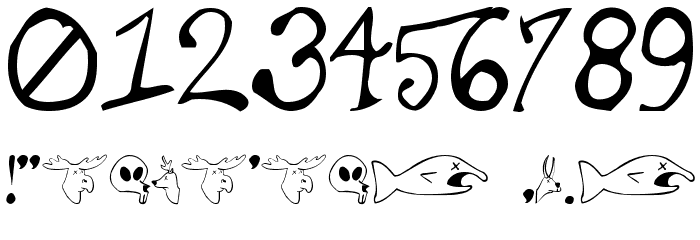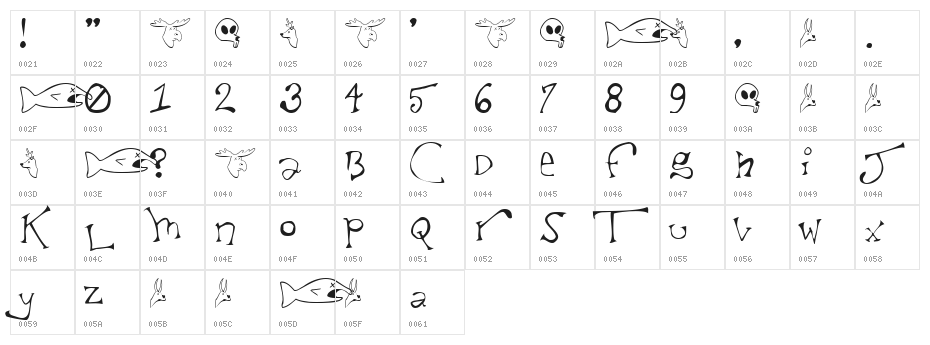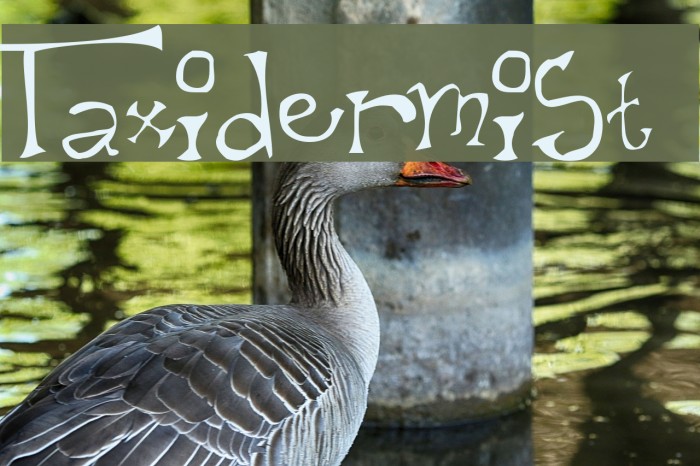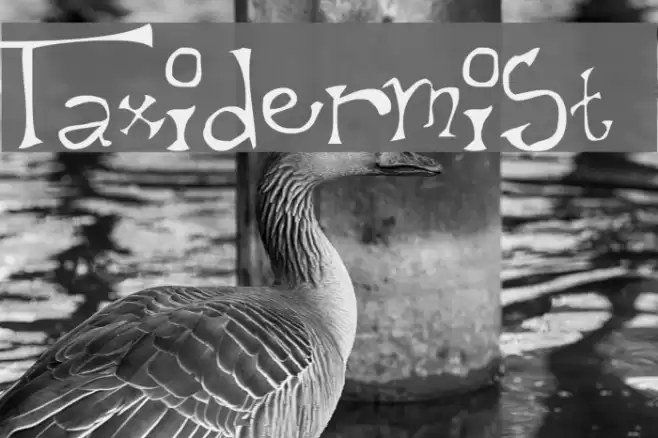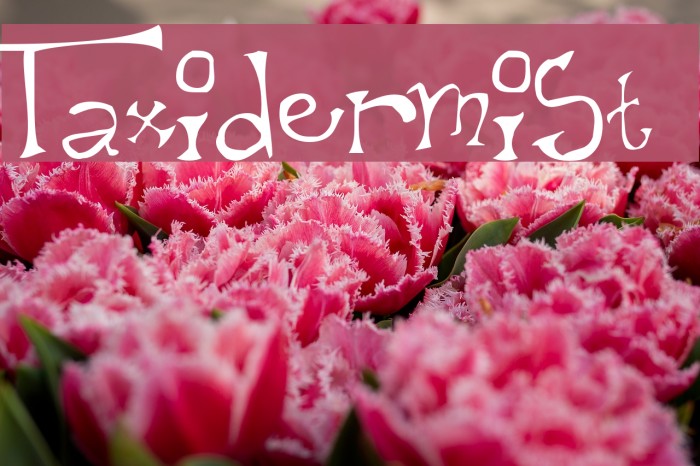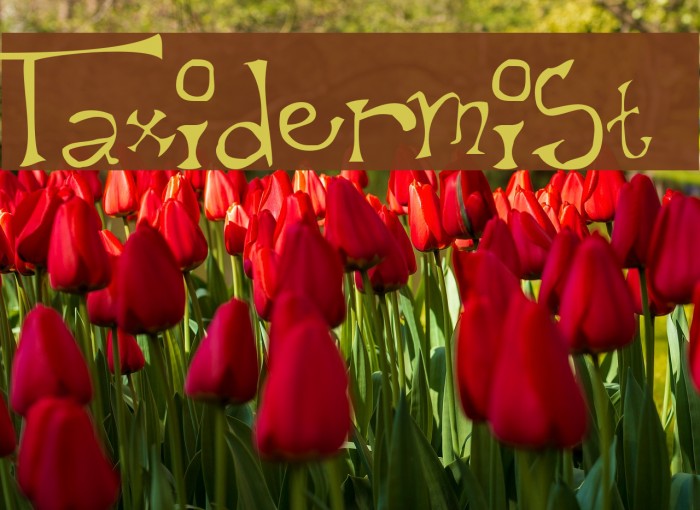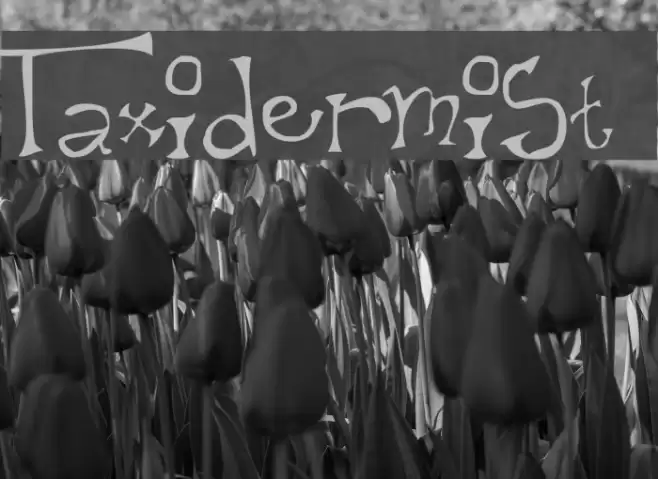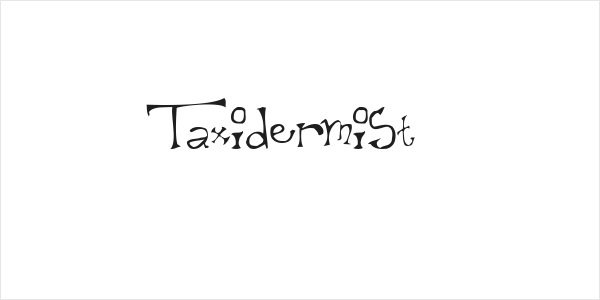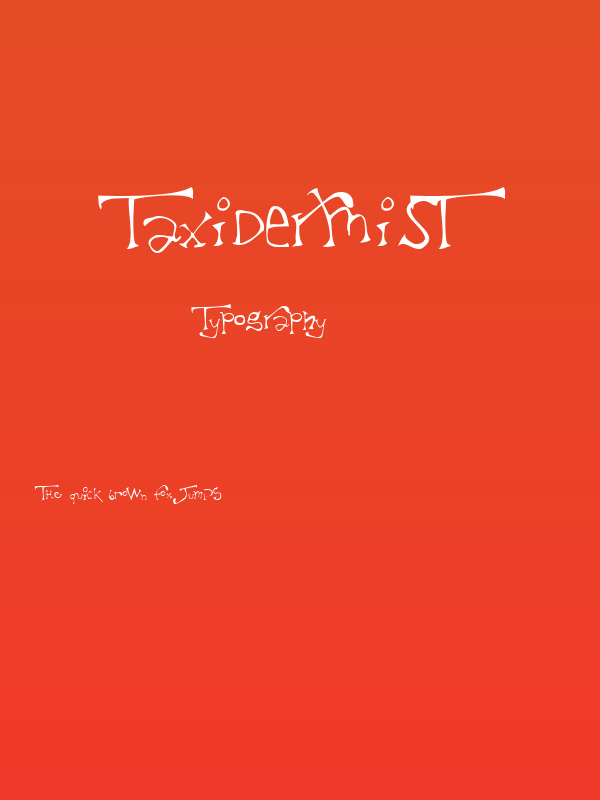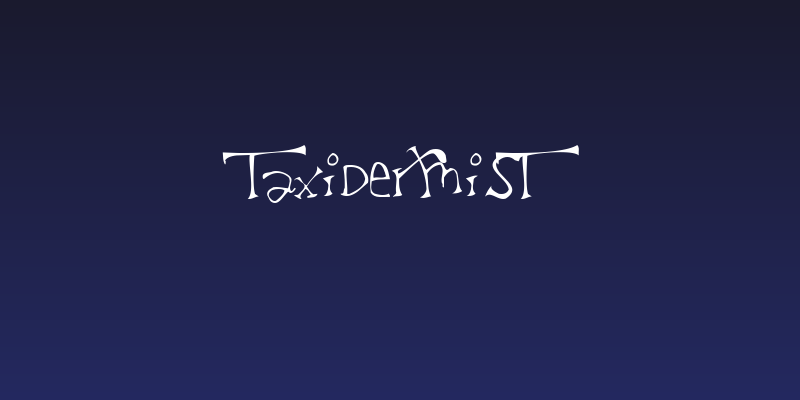
Taxidermist Font
Taxidermist Description
This font features a whimsical and playful design with a hand-drawn aesthetic. The characters are irregular and have a quirky, almost cartoonish style, with varying stroke widths and exaggerated curves. The uppercase and lowercase letters share a consistent theme, with unique flourishes and decorative elements that give each character a distinct personality. The numbers and special characters follow the same playful design, making the font suitable for creative and informal projects. The overall appearance is lively and dynamic, with a sense of movement and energy.